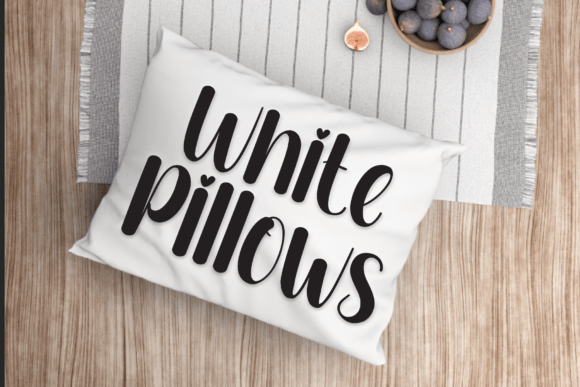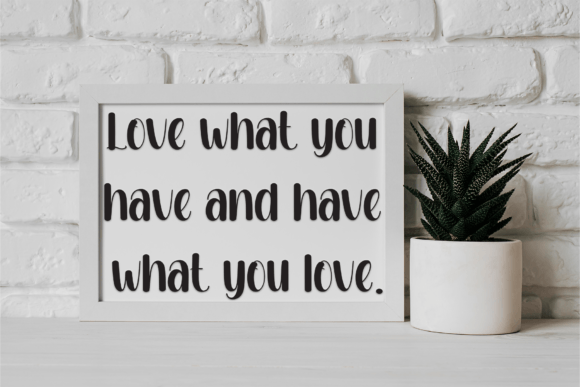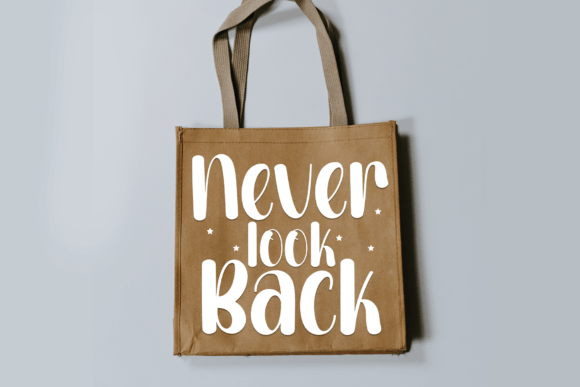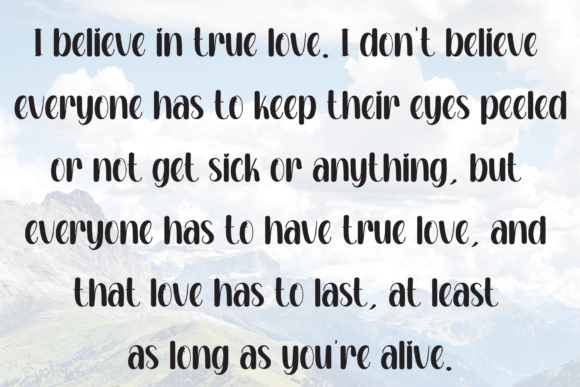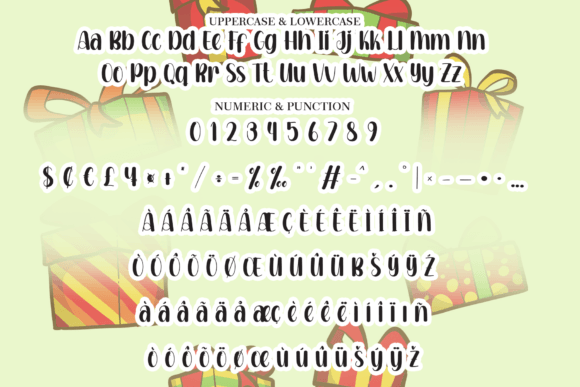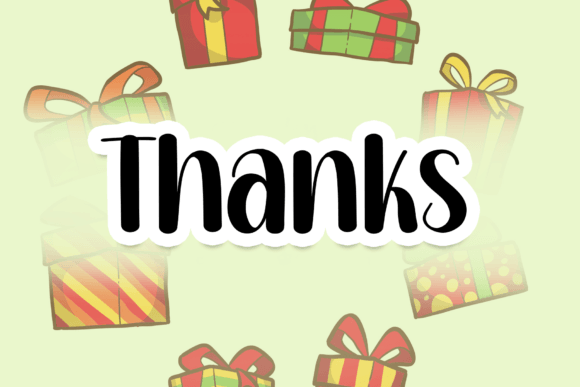
Introduction to Simple Gift Font Font
Fonts play a crucial role in design, and the Simple Gift Font font is a typeface that brings both character and versatility to any project. Whether you’re working on a branding project, a website, or a print design, the Simple Gift Font font offers a unique style that can elevate your work.
Introducing “Simple Gift Font,” a versatile and elegant typeface that embodies the essence of simplicity and grace.
With its clean lines and minimalist aesthetic, this font offers a timeless charm that complements a wide range of design projects Perfect for invitations, branding, and contemporary artwork.
Key Features of Simple Gift Font Font
Why Choose Simple Gift Font Font?
The Simple Gift Font font is more than just a typeface – it’s a design tool that helps you communicate your message with style and clarity. Its unique character set and versatile design make it suitable for a wide range of applications, from elegant invitations to bold headlines.
With its carefully crafted letterforms and balanced proportions, the Simple Gift Font font ensures readability and visual appeal across all mediums.
What makes Simple Gift Font font special?
The Simple Gift Font font stands out with its unique design, exceptional readability, and versatility across various design applications.